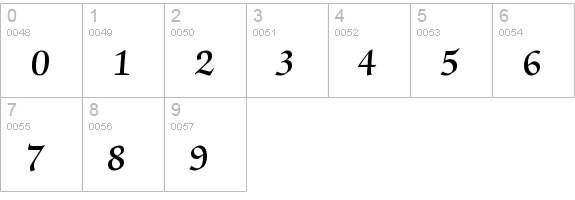
Chancery Script SSi Semi Bold Font Details
Chancery Script SSi Semi Bold is a strong, high-contrast variant in the Chancery typeface family \xE2\x80\x94 well suited to headlines, attention-grabbing titles, and strong calls-to-action.
Chancery Script SSi Semi Bold font is a sophisticated and elegant typeface that exudes a sense of timeless charm and refinement. Its graceful curves and delicate strokes make it perfect for adding a touch of class to any project, whether it be invitations, branding materials, or signage. The semi bold weight of this font gives it a sense of presence and authority, making it ideal for headlines and titles. What sets Chancery Script SSi Semi Bold font apart is not just its beauty, but also the fact that it is available for free download at FontsMarket.com. This means that you can easily access this exquisite typeface and use it in your designs without any cost. So why wait? Elevate your creations with the elegance of Chancery Script SSi Semi Bold font today!